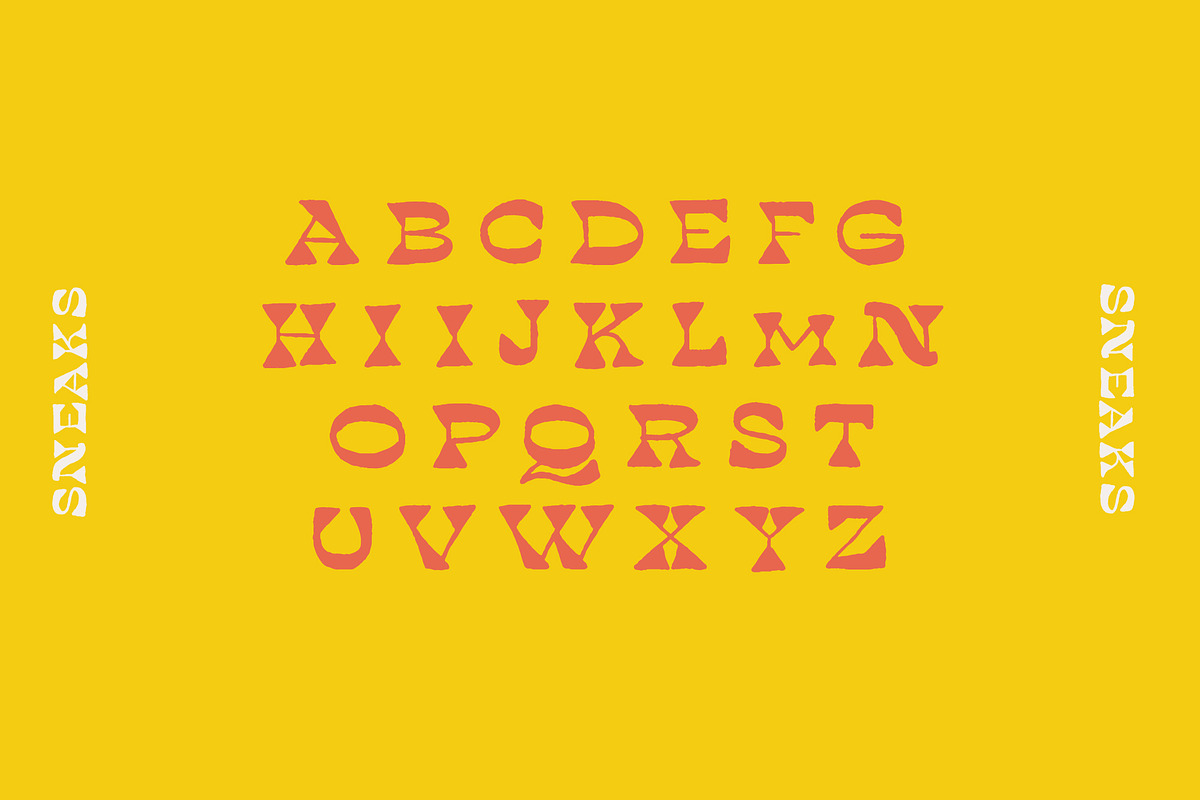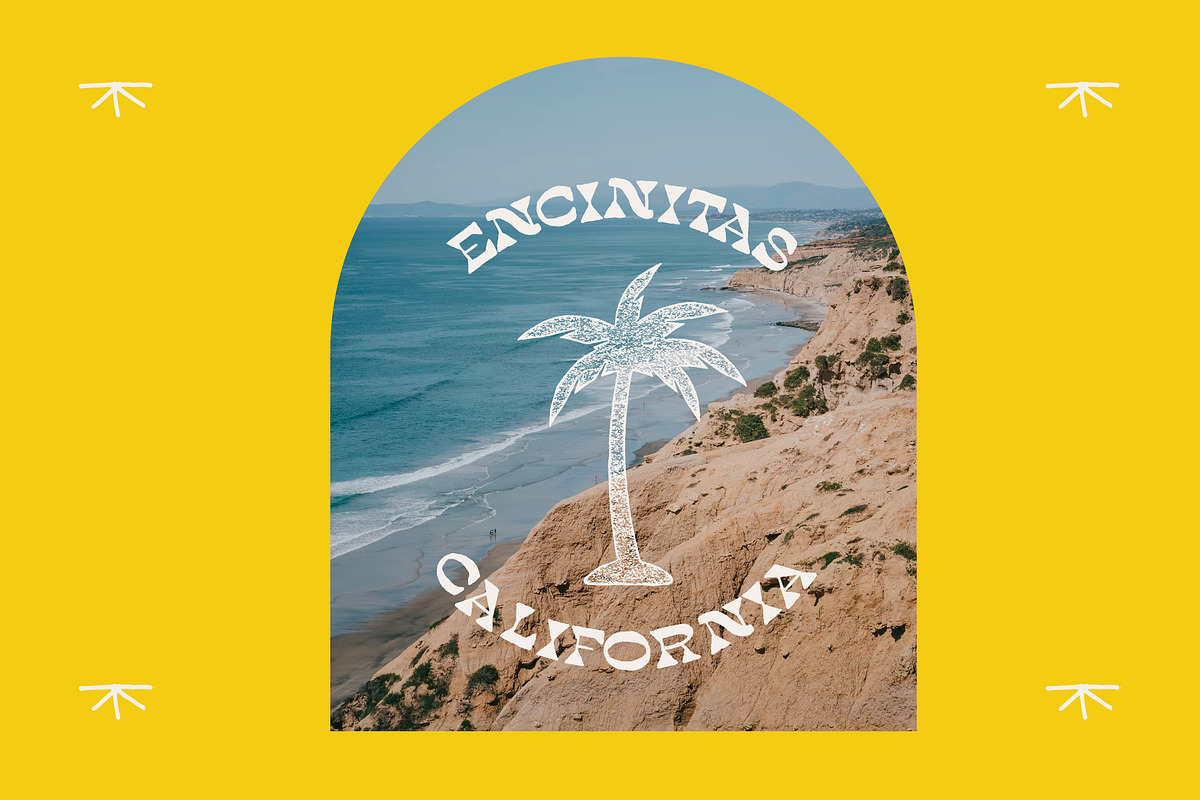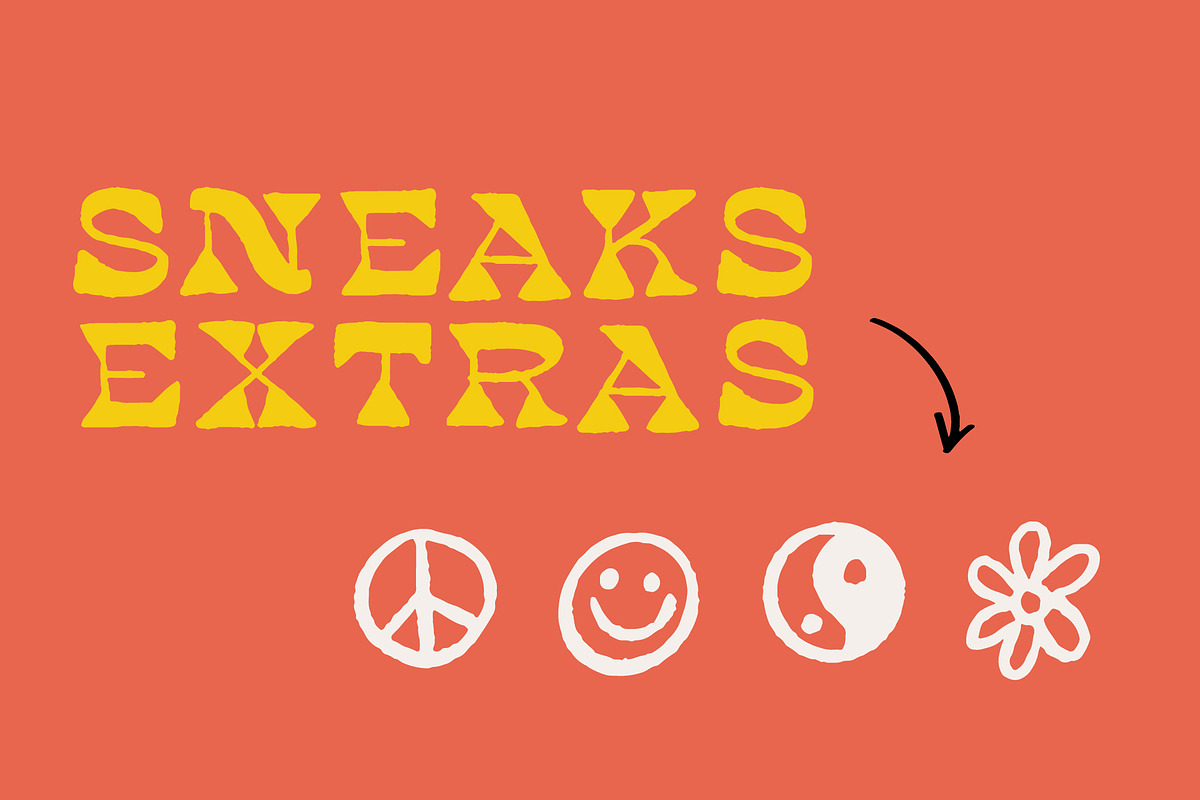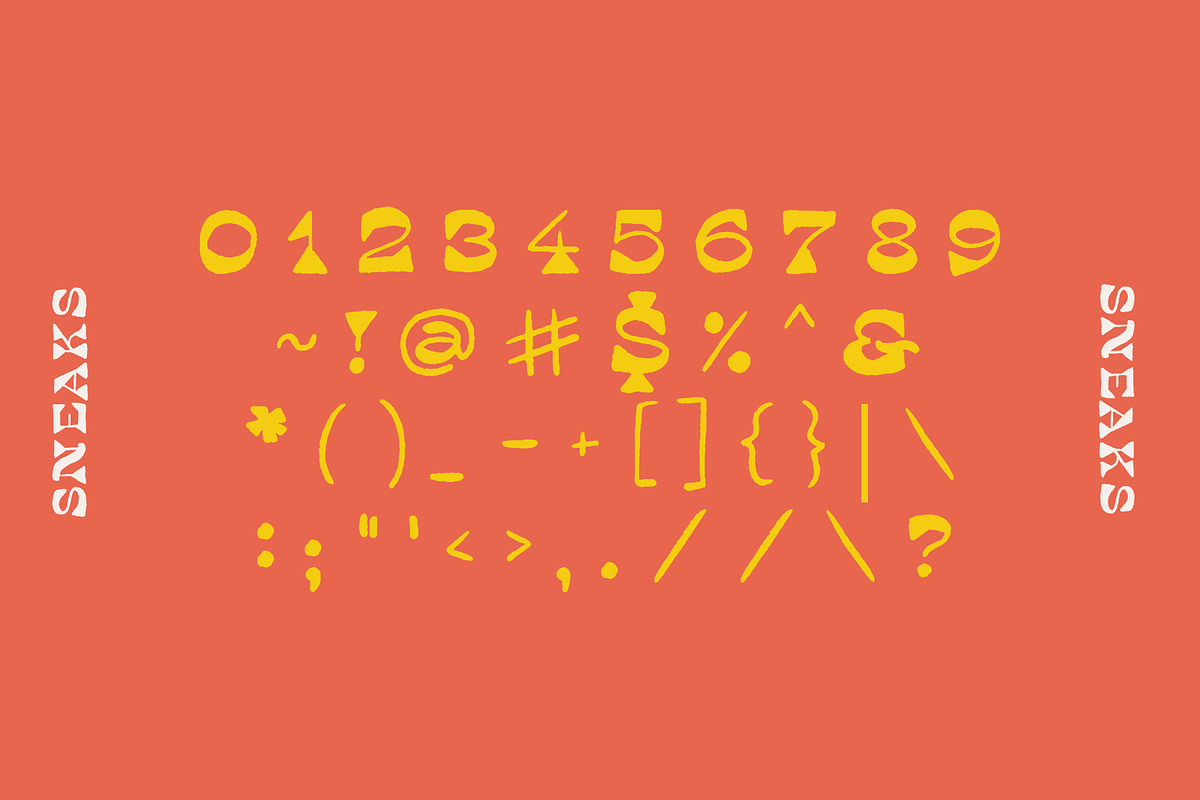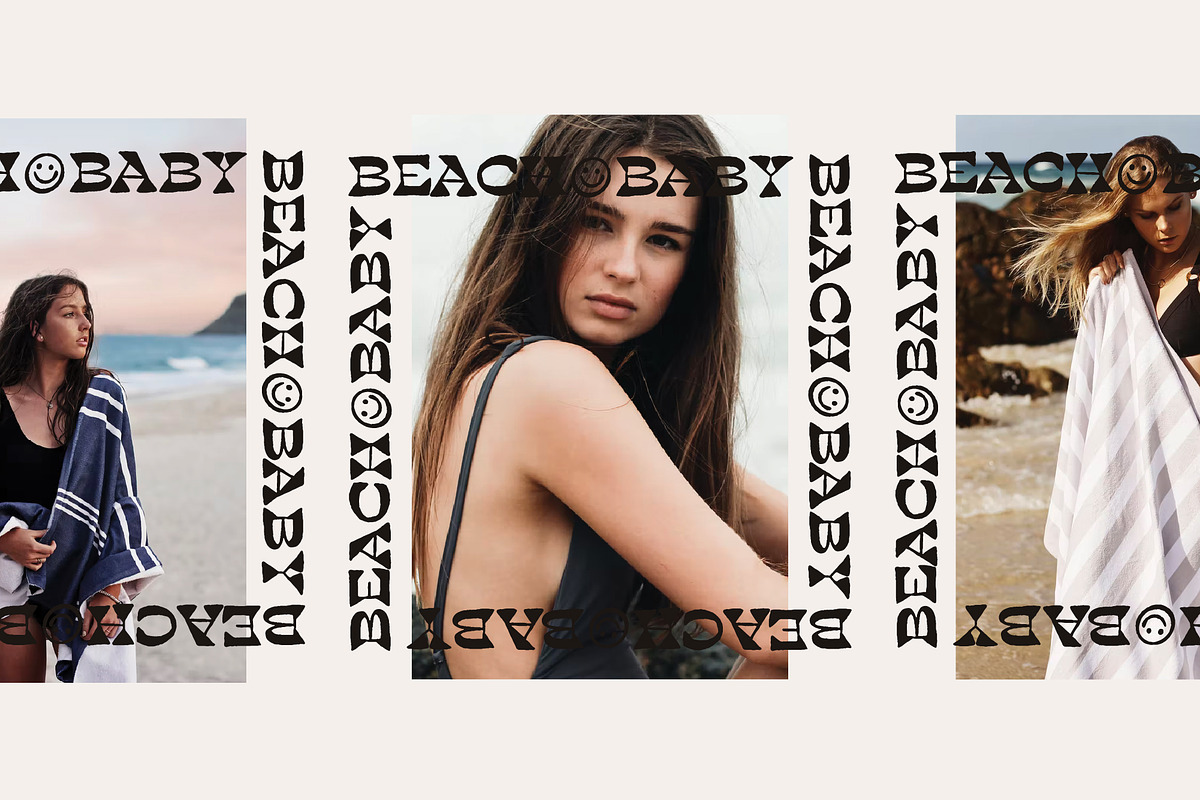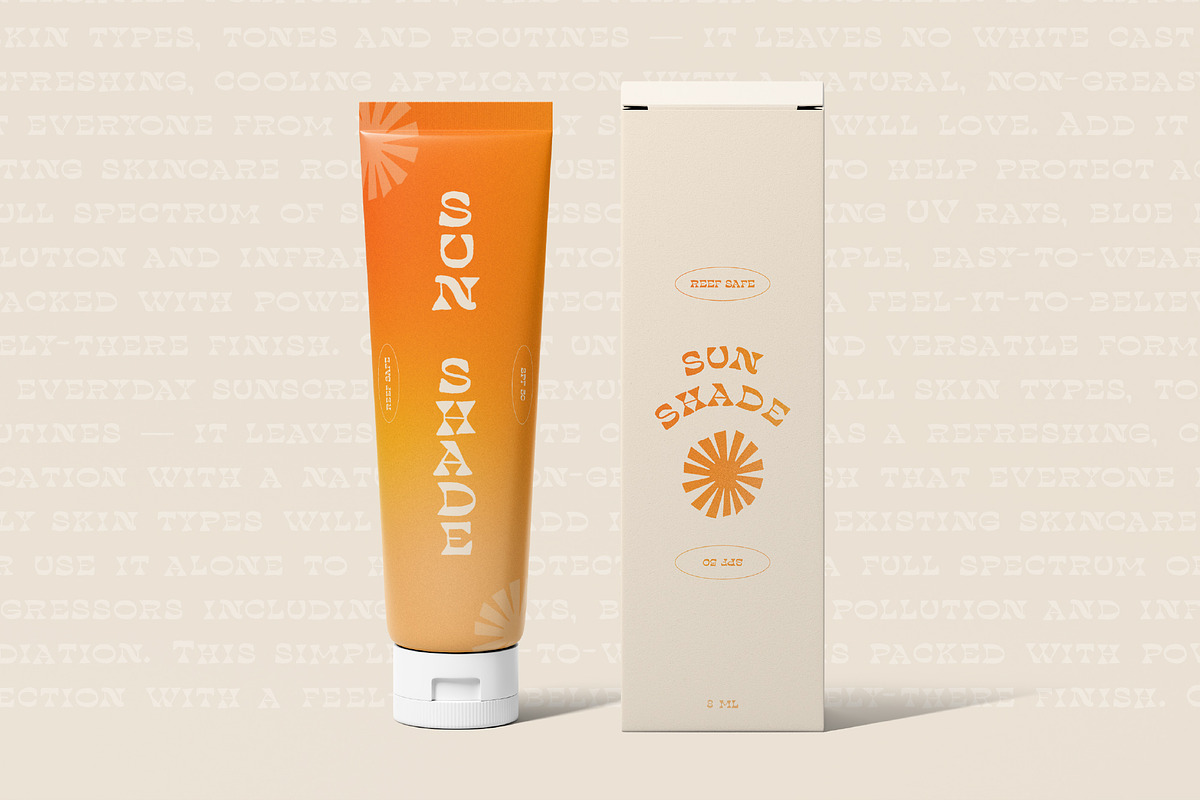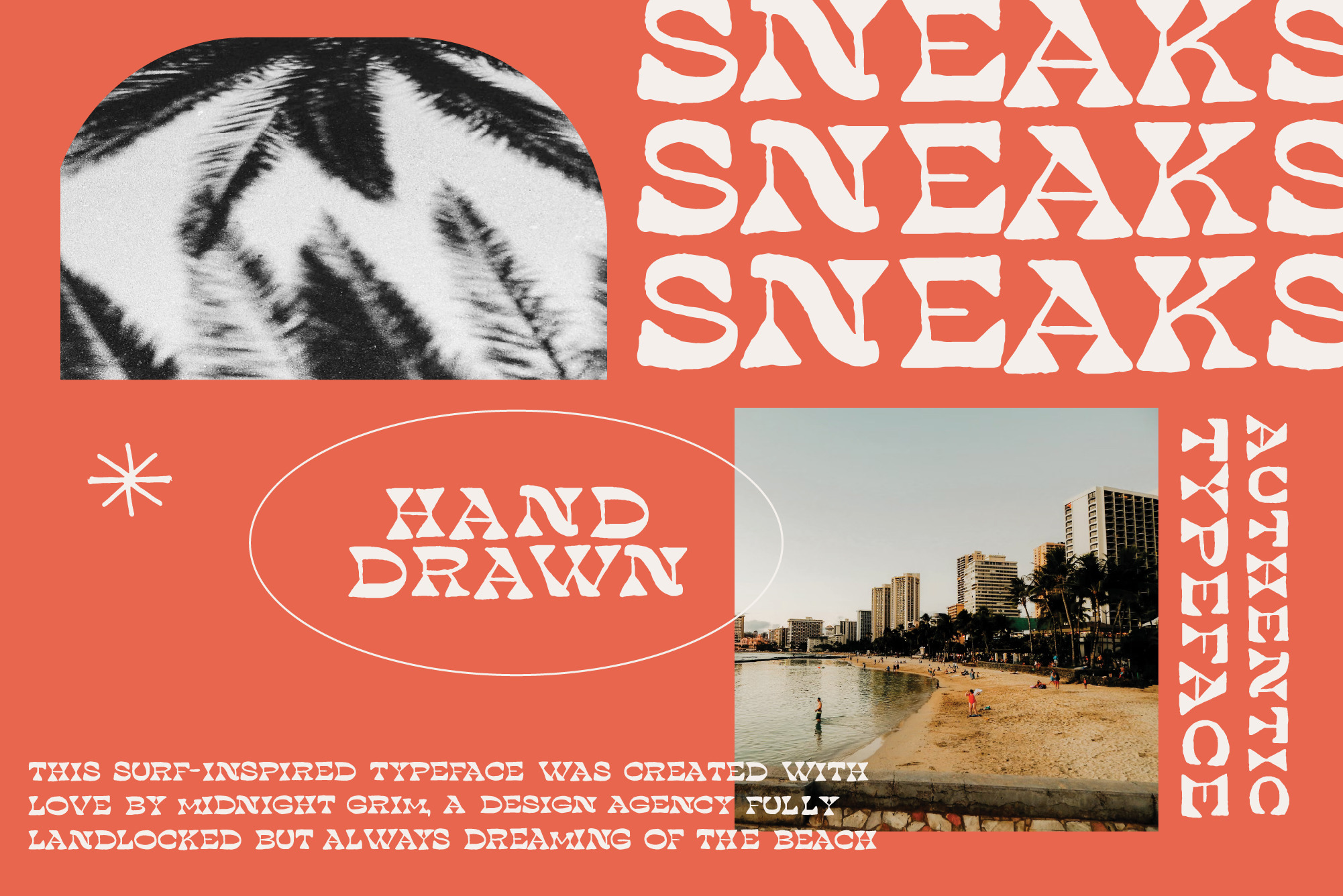
Sneaks Display Font
Dig this radical font, SNEAKS ~ Inspired by beach life of the 60's and 70's. This font includes 4 hand-drawn glyphs easily accessed in the Glyphs panel of your font to create fun and dynamic designs for branding, posters, art prints, invitations, and more!